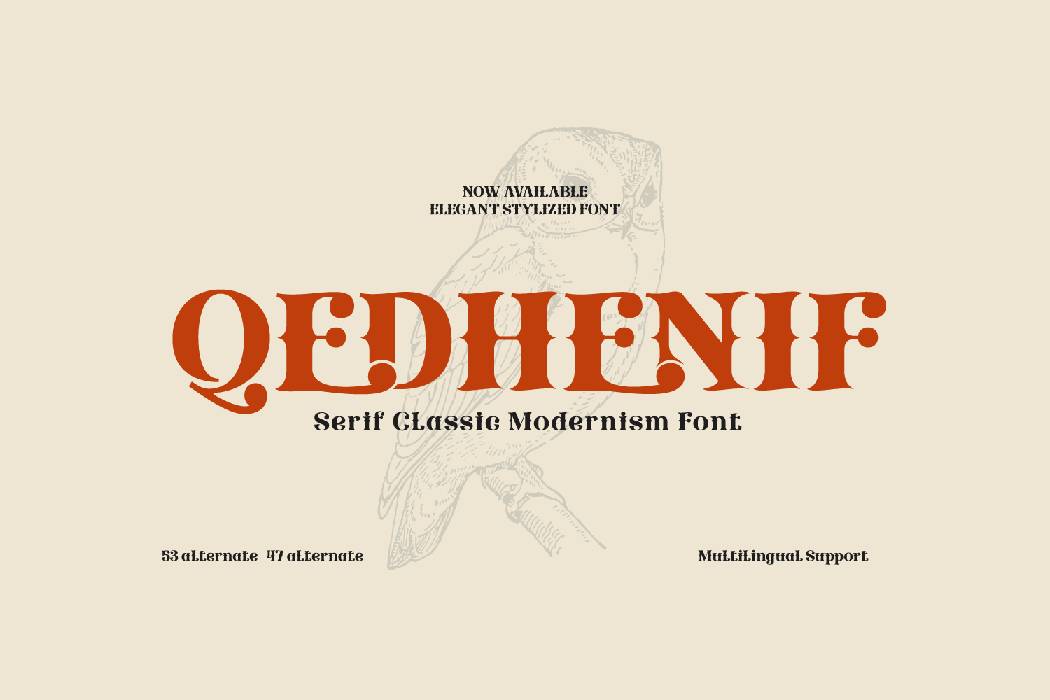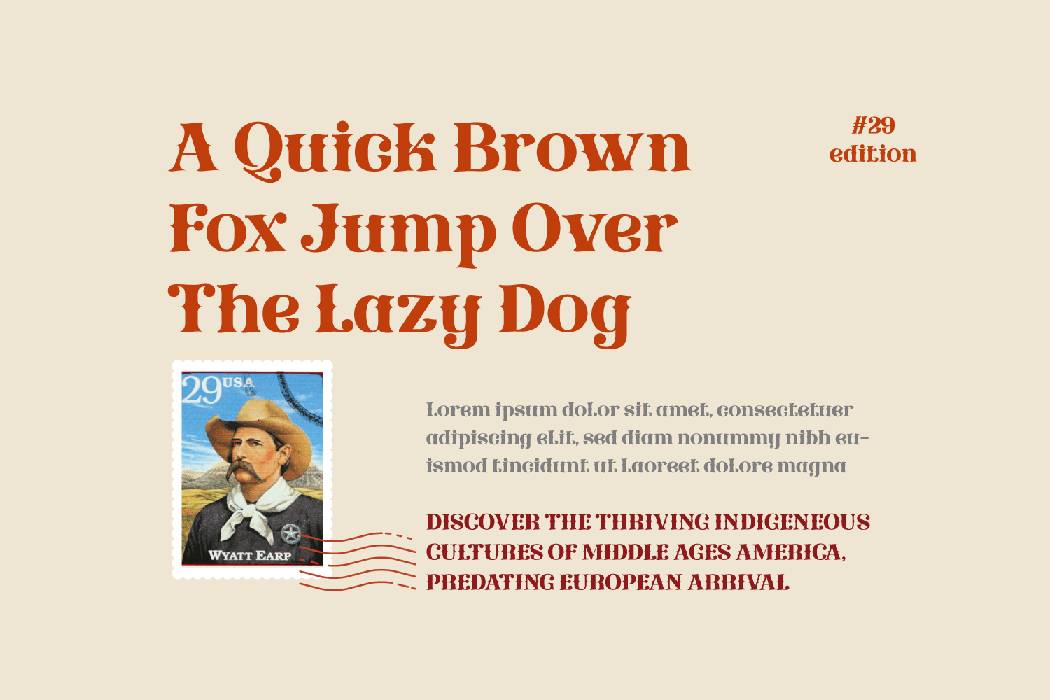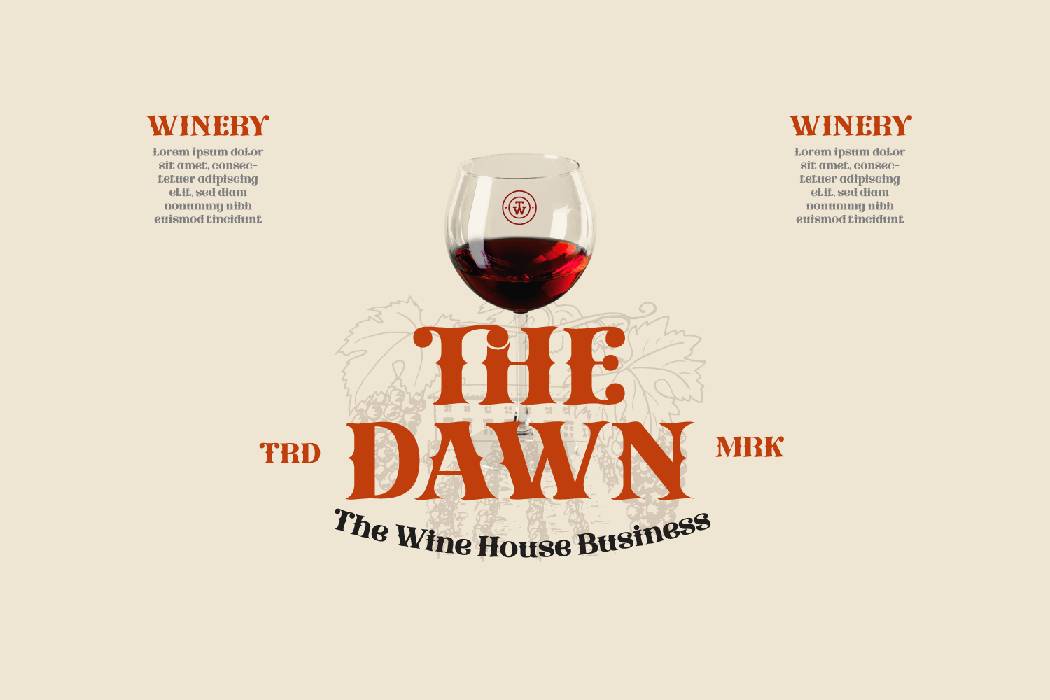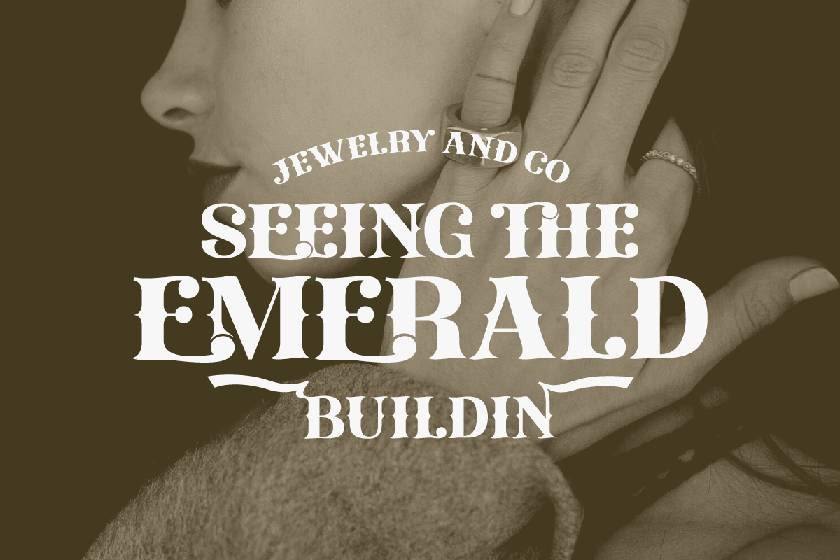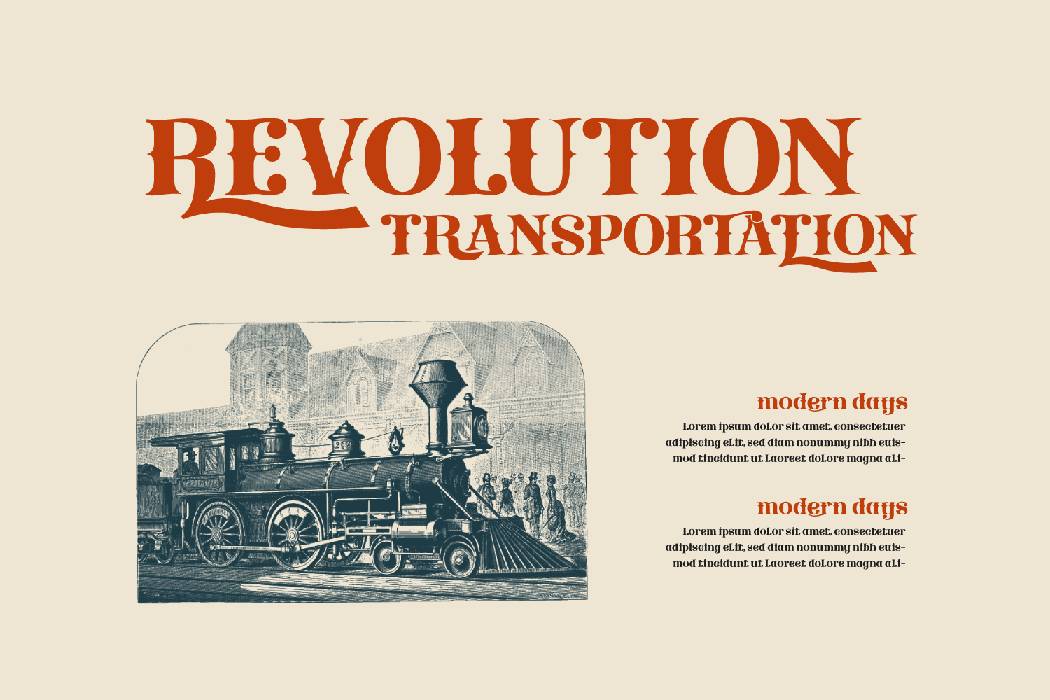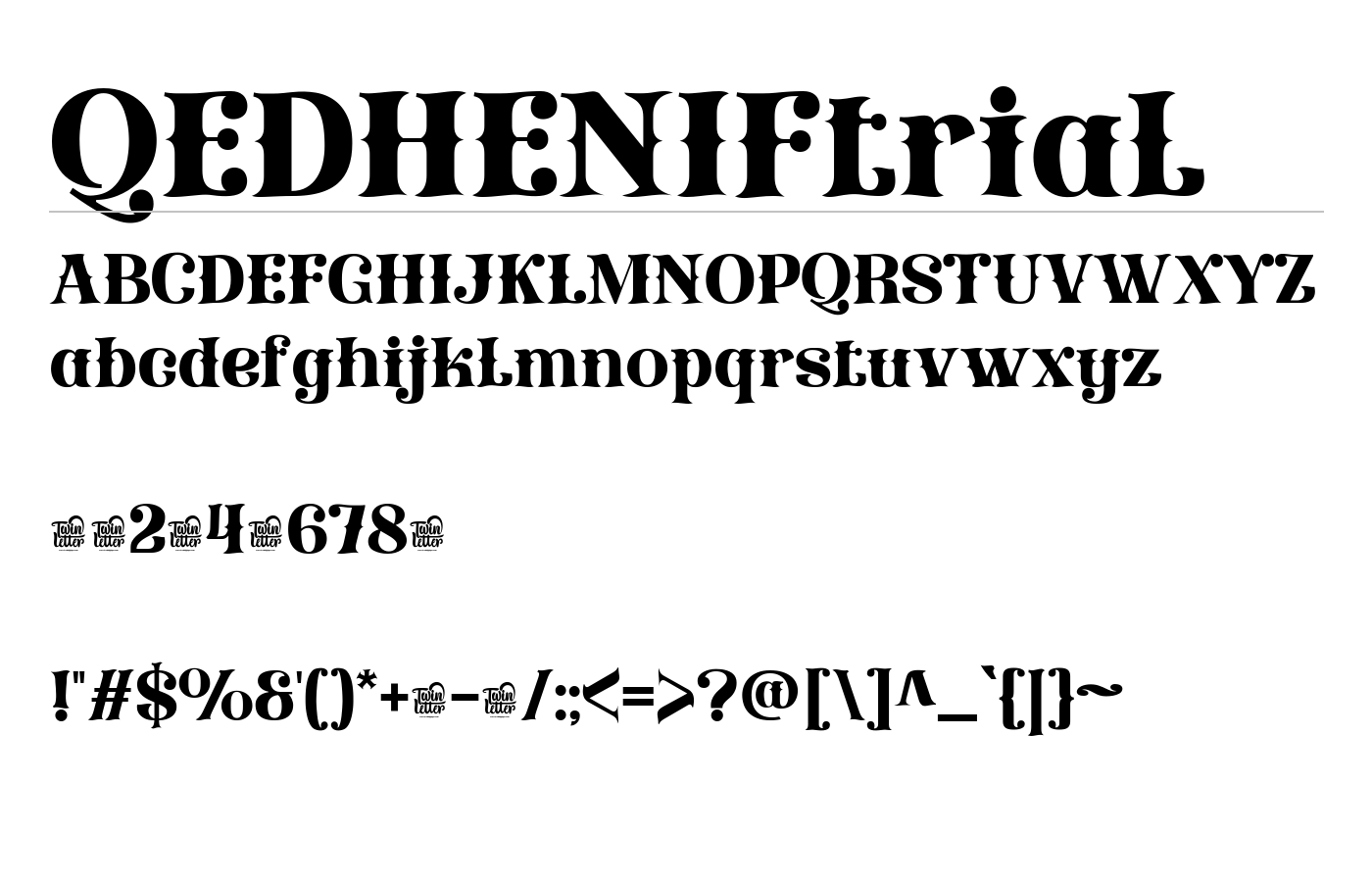
Qedhenif is a bold, slab serif font with a strong vintage character, featuring high contrast between thick and thin strokes and distinctive bracketed serifs. Its unique, slightly condensed letterforms with dramatic curves and playful details make it ideal for eye-catching headlines, logos, and packaging, especially in retro or artisanal branding. This font brings a bold, stylish personality that commands attention while maintaining readability.
Qedhenif Font
About Qedhenif Font